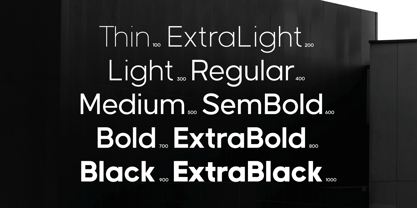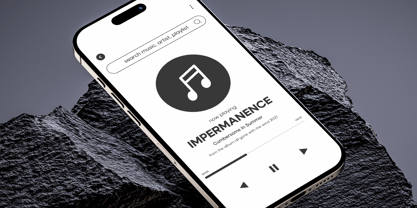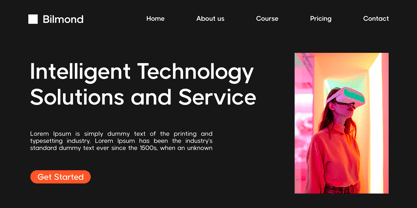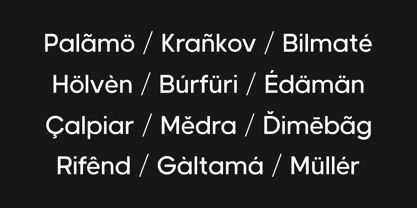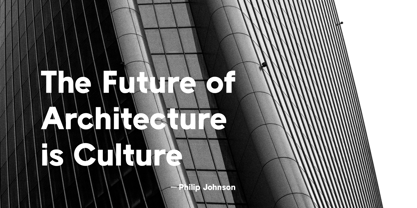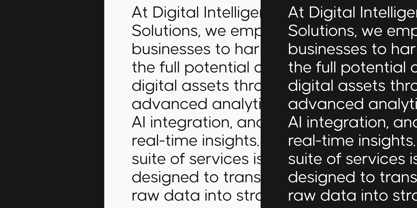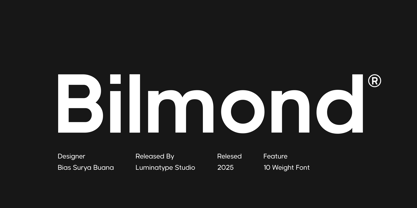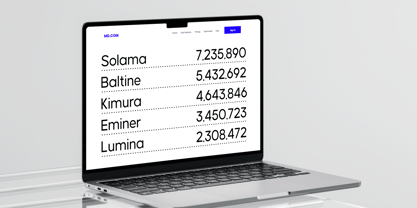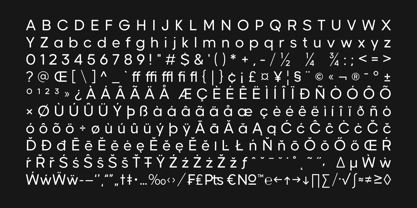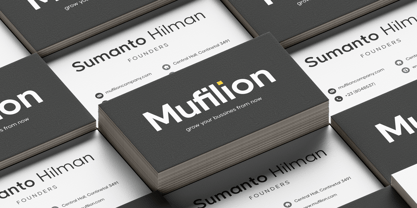
Bilmond
by Luminatype Studio
The Bilmond Font Family was designed by and published by Luminatype Studio. Bilmond contains 10 styles and family package options. More about this family
Introducing Bilmond, a geometric sans serif font carefully crafted by Luminatype Studio. This artistically versatile font set boasts an impressive range of 10 weights, from the lightest of thins to the most commanding extra blacks.
Ideal for shaping identities in branding, enhancing legibility in reading materials, tailoring sleek logo designs, and integrating seamlessly into both technology interfaces and websites.
Bilmond's adaptability makes it an asset in a multitude of design contexts.
Explore the dynamic depths of Bilmond and bring your designs adventure with Bilmond Font.